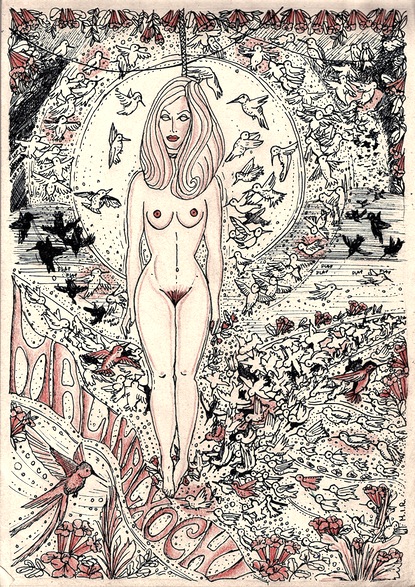
Marta Isabella Reina
Marta Isabella Reina obtained a PhD at Politecnico di Milano in 2018 with a thesis entitled Communication design for gender cultures. Models and tools to explore gender issues in design education. She is currently a lecturer at the University of Greenwich, UK. In addition, she works as a visual artist and illustrator in Bristol, UK. In Gio Fuga's class at Politecnico di Milano, Marta Isabella Reina created the signage script typeface Campbell (2009), which is modeled after the lettering on Campbell's soup tins. |